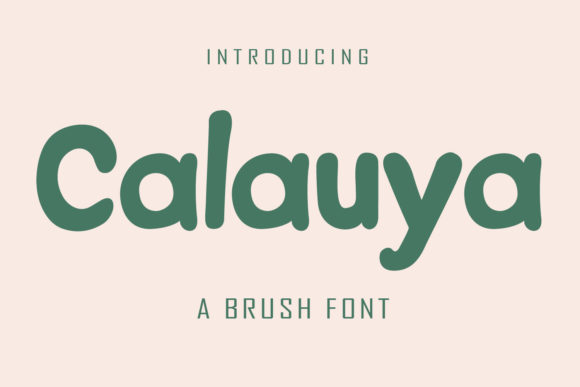
Introducing Calauya Font: The Ultimate Display Font for Crafters and Designers
Are you a crafter or designer looking for a font that can elevate your creative projects? Look no further than Calauya Font! This adorable, clean, and adaptable display font is perfect for a wide range of crafting ideas, from cards and invitations to branding, labels, and more. In this article, we’ll dive into the features and benefits of Calauya Font, and explore how it can take your designs to the next level.
What is Calauya Font?
Calauya Font is a modern display font designed specifically for crafters and designers. Its cute and clean aesthetic makes it perfect for projects that require a touch of whimsy and personality. The font is highly adaptable, allowing you to use it for a variety of applications, from digital designs to print materials.
Key Features of Calauya Font
- Cute and Clean Design: Calauya Font features a unique and adorable design that’s perfect for crafters and designers who want to add a touch of personality to their projects.
- Highly Adaptable: This font is designed to be versatile, making it suitable for a wide range of applications, from cards and invitations to branding and labels.
- Easily Readable: Despite its decorative nature, Calauya Font is highly legible, making it perfect for use in both digital and print materials.
- Multilingual Support: Calauya Font supports multiple languages, making it a great choice for designers and crafters who work with international clients or want to create projects for a global audience.
Benefits of Using Calauya Font
So, why should you choose Calauya Font for your next project? Here are just a few benefits of using this amazing display font:
- Adds Personality to Your Designs: Calauya Font’s unique and adorable design allows you to add a touch of personality to your projects, setting them apart from more generic designs.
- Saves Time: With Calauya Font, you can create professional-looking designs in no time. Its highly legible and adaptable nature makes it easy to use and customize.
- Perfect for Branding: Calauya Font is an excellent choice for branding projects, as it allows you to create a unique and memorable visual identity for your clients or business.
How to Use Calauya Font in Your Designs
Using Calauya Font in your designs is easy! Here are a few ideas to get you started:
- Crafting Projects: Use Calauya Font to create adorable cards, invitations, and other crafting projects that require a touch of personality.
- Branding and Packaging: Calauya Font is perfect for branding and packaging projects, such as labels, stickers, and product packaging.
- Digital Designs: Use Calauya Font in your digital designs, such as social media graphics, blog posts, and email newsletters.
| Font Name | Calauya Font |
| Author | Crafty Files |
In conclusion, Calauya Font is an amazing display font that’s perfect for crafters and designers who want to add a touch of personality to their projects. Its cute and clean design, highly adaptable nature, and easily readable characters make it an excellent choice for a wide range of applications. Whether you’re working on crafting projects, branding and packaging, or digital designs, Calauya Font is sure to elevate your designs to the next level.